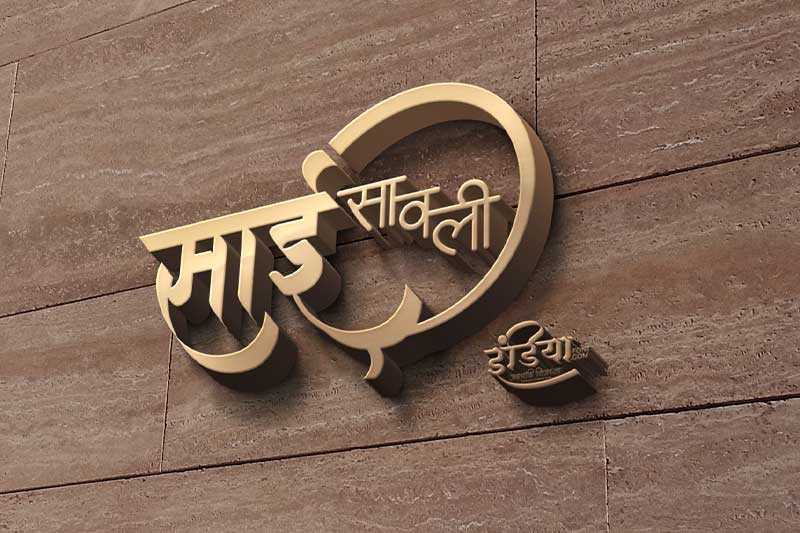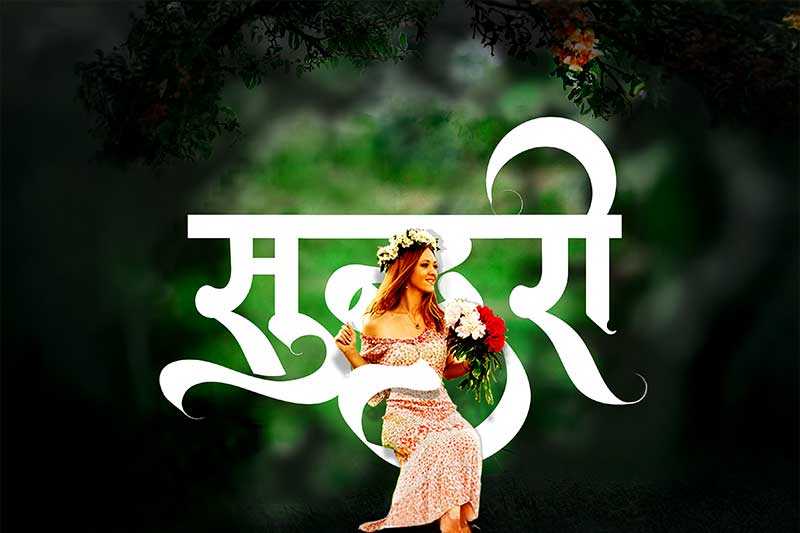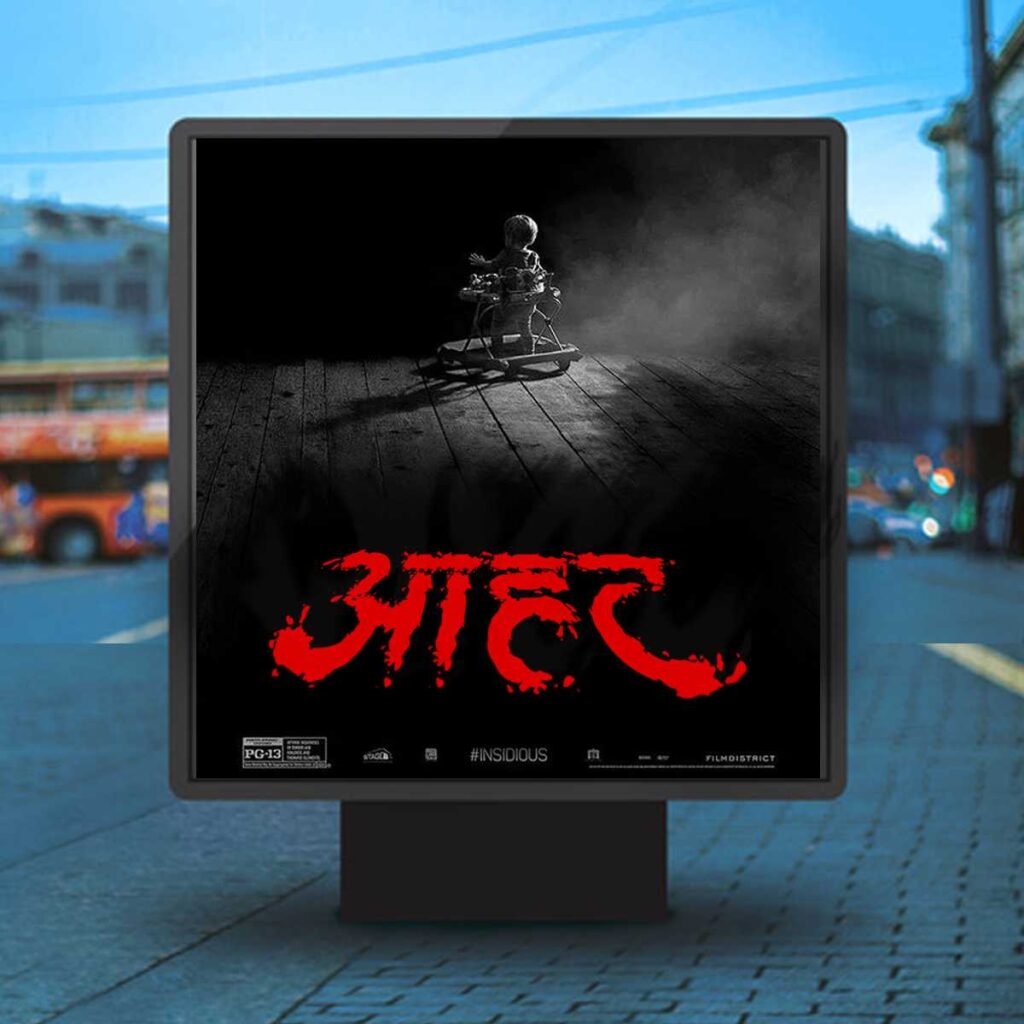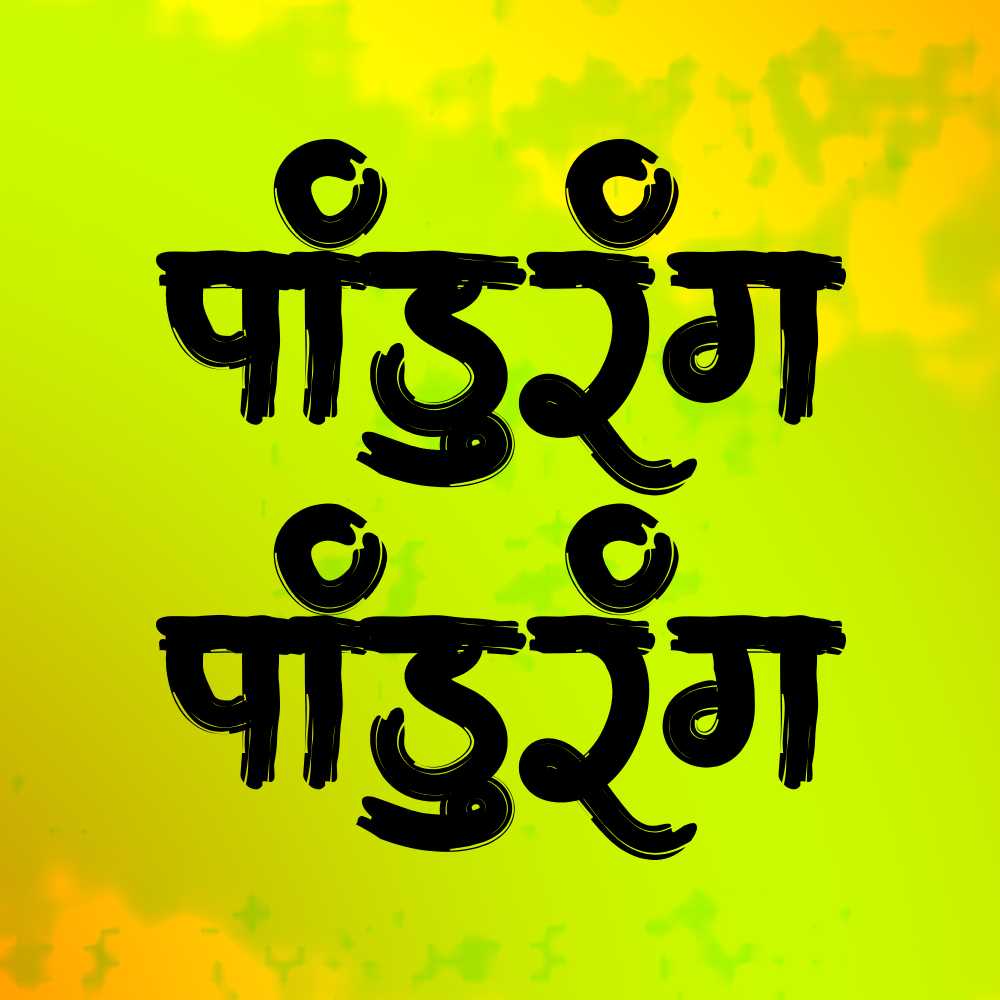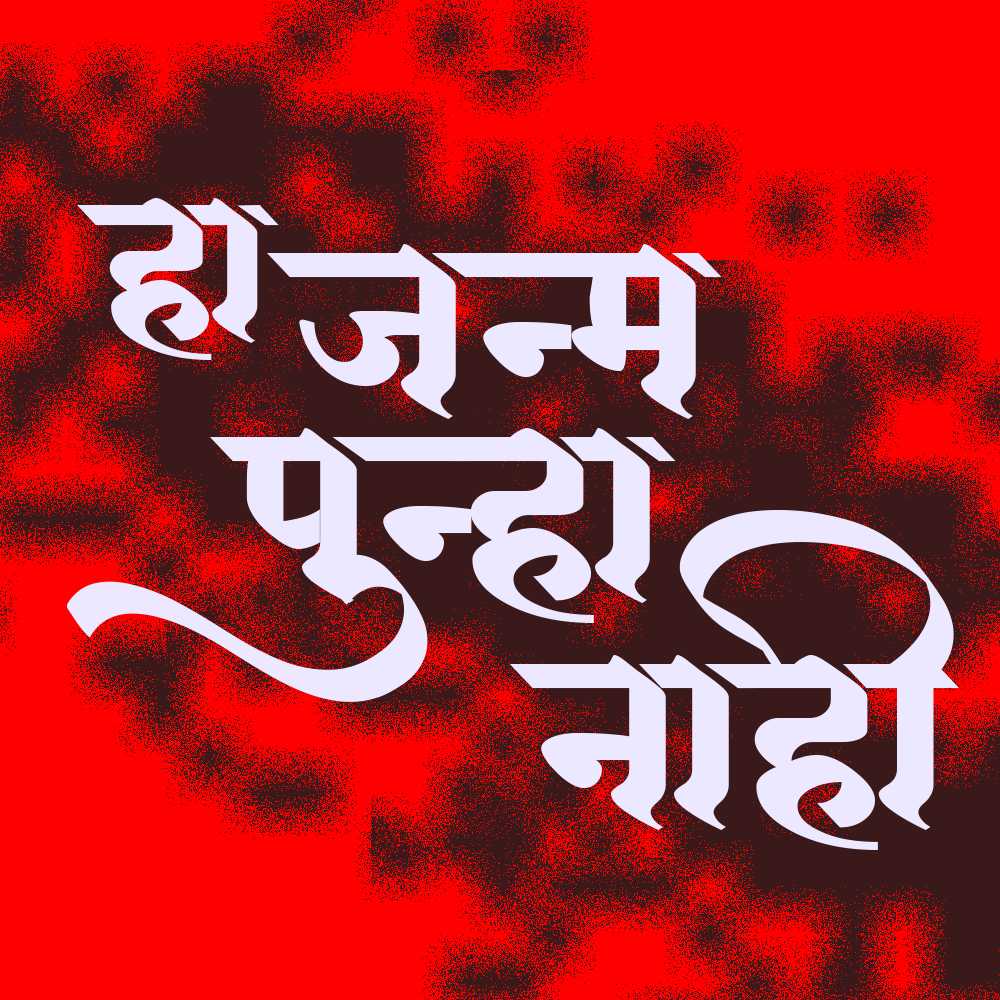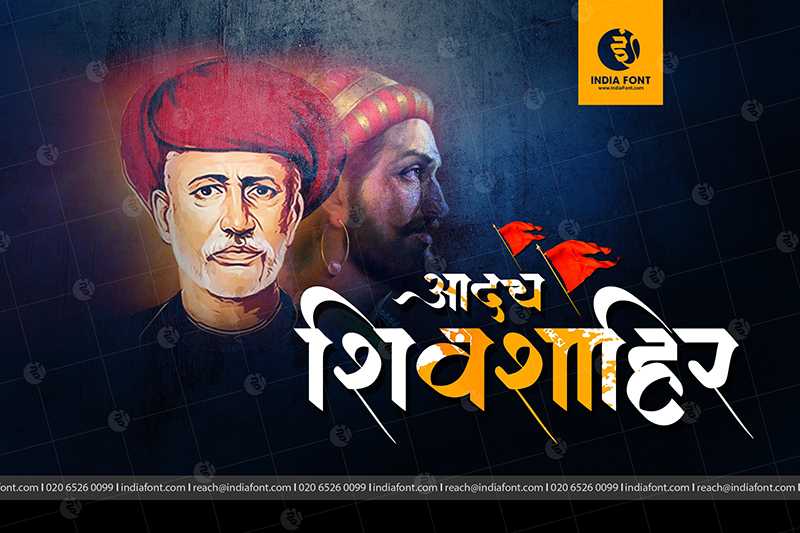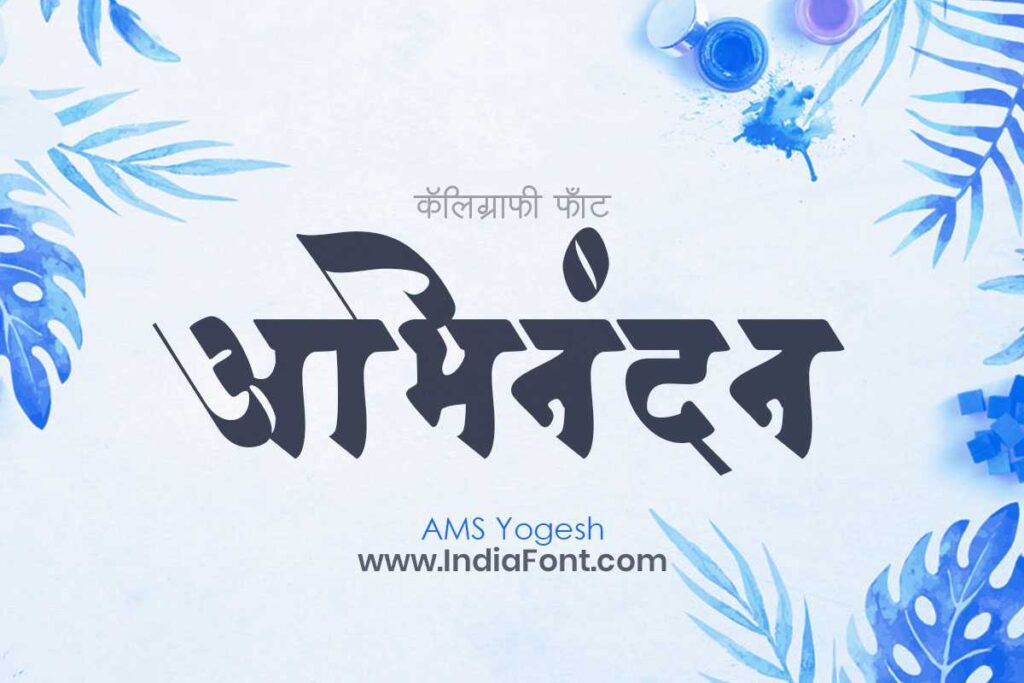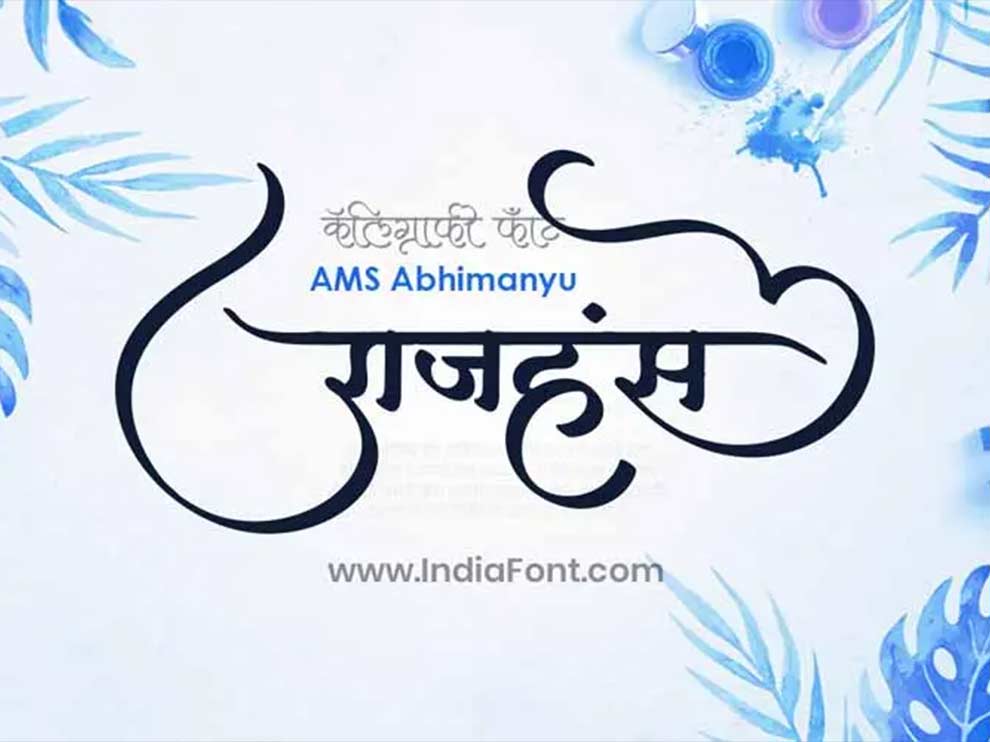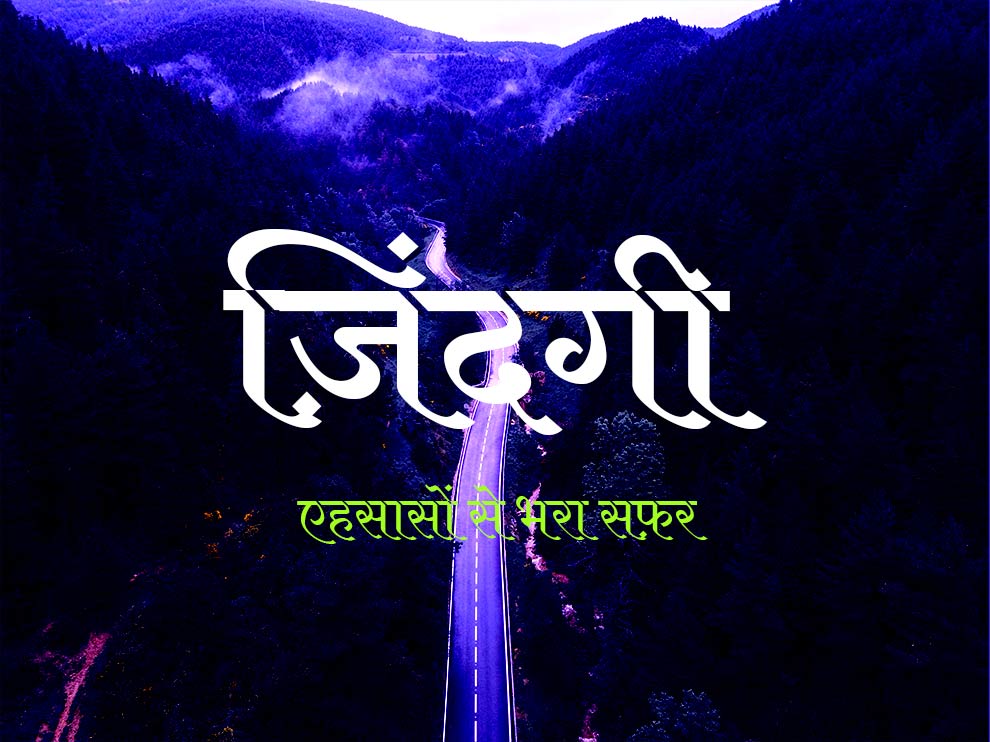
Best Calligraphy Hindi Fonts for 2026: Beautiful, Free and Ready to Use
I was working on a Hindi poster last year and spent nearly two hours just staring at different Hindi calligraphy fonts. Nothing looked right. Some were too stiff, some too plain, and most of them just looked like every other design I had seen a dozen times before. Then I found a calligraphy font that completely changed the poster within minutes.
That is the thing about a wonderful Hindi calligraphy font. It does not just sit there on the page. It adds feeling to your words before anyone even reads them. So here is a list of fonts that are actually worth using in 2026. These are the ones that designers, students, and creatives are genuinely reaching for right now.
Why Font Choice Matters More Than You Think
People decide how they feel about a design in seconds. Before they read a single word, they have already formed an impression. A lazy font makes the whole project look lazy. But swap in the right Hindi calligraphy font and everything shifts. Same words, entirely different impact. In 2026, with so many excellent free options around, there is no reason to keep settling for boring.
15 Best Calligraphy Hindi Fonts for 2026
1. AMS Aaditya
This font’s strokes resemble those drawn with a fine brush by a skilled artist. Smooth, calm, and quietly elegant. It works beautifully for anything traditional.
•        Best for: Wedding invitations, devotional posters, traditional brand logos
2. AMS Aakash
Bold and confident. Not delicate or subtle at all. When you want a headline that owns the space around it, this font is the one you go for.
•        Best for: Posters, banners, YouTube thumbnails, social media titles
3. AMS Aakul 3
Works in both traditional and modern settings without looking out of place. Clean, balanced, and handcrafted enough to stand apart without being overdone.
•        Best for: Book covers, event flyers, cultural project materials
4. AMS Aakul 4
A step up from Aakul 3. Stronger strokes, more presence, and a more polished finish. When you need something formal and premium, this one delivers.
•        Best for: Corporate Hindi branding, high-end print, ceremonial designs
5. Kalam
Looks exactly like real handwriting, with all the natural quirks that come with it. Nothing stiff or mechanical here. It just feels genuine and personal.
•        Best for: Blog headers, personal brand visuals, handwritten-style content
6. Amita
Soft, graceful, and genuinely beautiful. The lightness resembles old calligraphy on paper that has been preserved for years. Perfect when your design needs warmth.
•        Best for: Poetry visuals, feminine brands, beauty and wellness content
7. AMS Yogesh
Calm and grounded. Every stroke feels like it was placed with intention. Works well for anything rooted in tradition or spirituality without trying too hard.
•        Best for: Yoga brands, spiritual content, meditation apps and materials
8. AMS Vasudeva
Thick, structured, and authoritative. It makes people take your text seriously. Still has enough calligraphic detail to keep it from looking plain or corporate.
•        Best for: Official publications, signage, heritage projects
9. AMS Premankur
Feels personal. Like it was written just for the person reading it. The letterforms carry a softness that makes your reader feel something rather than just read something.
•        Best for: Wedding cards, anniversary gifts, heartfelt messages
10. Samarkan
Hindi calligraphy fonts
Inspired by traditional Indian lettering but styled with a bold cinematic feel. The strokes are dramatic, artistic, and instantly eye-catching. It gives designs a strong cultural personality while still feeling modern and stylish.
•        Best for: Movie posters, festival branding, restaurant logos, cultural campaigns, bold social media creatives
11. Yatra One
Hindi calligraphy fonts
Built for big moments and large headlines. Festive, energetic, and the kind of font that makes people stop scrolling. Made for display, not body text.
•        Best for: Film posters, festival promotions, event marketing, entertainment
12. Tillana
Hindi calligraphy fonts
The letterforms actually move. There is rhythm in them, like a dancer mid-step. Inspired by classical Indian arts, it shows in every curve. Culture and grace in one font.
•        Best for: Cultural programs, dance events, arts organizations, festivals
13. AMS Aayush
Hindi calligraphy fonts
Lively, warm, and not overly serious. Works well for younger audiences and anything that needs to feel cheerful without coming across as childish.
•        Best for: Educational content, children’s media, fun brand visuals
14. AMS Abhimanyu
Carries real weight, both visually and emotionally. Feels rooted in heritage. When you use this font, your design feels like it stands for something bigger than itself.
Whether you go with the delicate feel of Amita, the bold energy of Yatra One, the handwritten warmth of Kalam, or any of the AMS fonts from this list, you are making a real choice about how your work looks and feels.